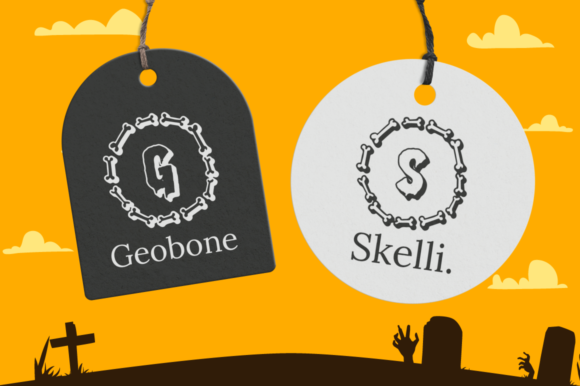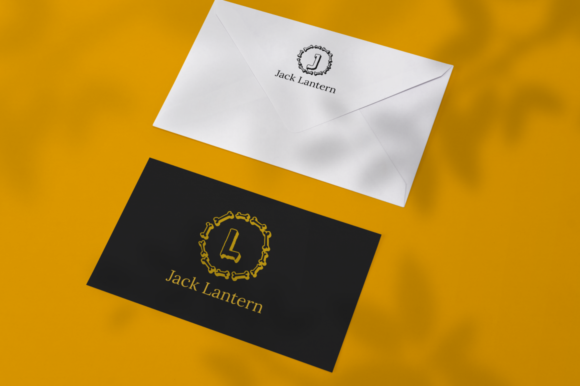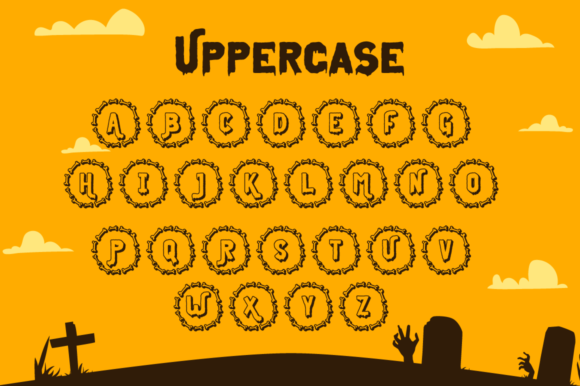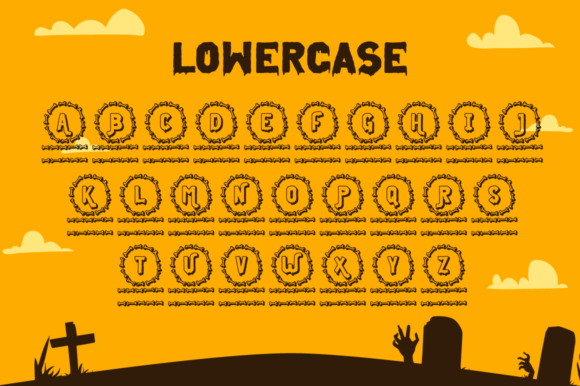
Bone Halloween Monogram Font: The Spookiest Addition to Your Halloween Projects
As the spookiest time of the year approaches, designers and crafters are on the lookout for the perfect fonts to add a touch of eeriness to their Halloween-related projects. Look no further than the Bone Halloween Monogram Font, a cool-lettered and spooky decorative font that’s sure to cast a spell on your audience. In this article, we’ll dive into the world of Bone Halloween Monogram Font and explore its features, uses, and benefits.
What is Bone Halloween Monogram Font?
Bone Halloween Monogram Font is a unique and creative font designed specifically for Halloween-themed projects. Its spooky and decorative style makes it perfect for adding a touch of eeriness to your designs, crafts, and DIY projects. The font features intricate and detailed lettering, with a bone-like structure that gives it a hauntingly beautiful appearance.
Key Features of Bone Halloween Monogram Font
- Unique and Spooky Design: The Bone Halloween Monogram Font boasts a one-of-a-kind design that’s sure to stand out from the crowd. Its spooky and eerie appearance makes it perfect for Halloween-themed projects.
- Cool-Lettered Style: The font features a cool-lettered style that’s perfect for adding a touch of edginess to your designs.
- Monogram Style: The font is designed in a monogram style, making it perfect for creating custom monograms and logos.
- High-Quality Design: The font is designed with high-quality graphics, ensuring that it looks great even at large sizes.
Uses of Bone Halloween Monogram Font
The Bone Halloween Monogram Font is versatile and can be used in a variety of projects, including:
- Halloween-themed Crafts: Use the font to create spooky and decorative crafts, such as Halloween cards, invitations, and decorations.
- DIY Projects: Add a touch of eeriness to your DIY projects, such as Halloween-themed signs, banners, and posters.
- Graphic Design: Use the font in your graphic design projects, such as creating Halloween-themed logos, brochures, and flyers.
- Web Design: Add a touch of spookiness to your website with the Bone Halloween Monogram Font, perfect for Halloween-themed websites or blogs.
Benefits of Using Bone Halloween Monogram Font
- Unique and Eye-catching: The font is sure to grab attention with its unique and eye-catching design.
- High-Quality Graphics: The font features high-quality graphics, ensuring that it looks great even at large sizes.
- Perfect for Halloween-themed Projects: The font is specifically designed for Halloween-themed projects, making it a must-have for designers and crafters.
Tips and Tricks for Using Bone Halloween Monogram Font
- Experiment with Different Sizes: Experiment with different font sizes to create a unique and eye-catching design.
- Combine with Other Fonts: Combine the Bone Halloween Monogram Font with other fonts to create a unique and interesting design.
- Use in Combination with Images: Use the font in combination with images to create a spooky and eye-catching design.
| Font Name | Bone Halloween Monogram Font |
| Author | attypestudio |
In conclusion, the Bone Halloween Monogram Font is a must-have for designers and crafters looking to add a touch of eeriness to their Halloween-themed projects. Its unique and spooky design, cool-lettered style, and high-quality graphics make it perfect for a variety of projects, from crafts and DIY projects to graphic design and web design. With its ease of use and versatility, the Bone Halloween Monogram Font is sure to be a hit with designers and crafters of all levels.